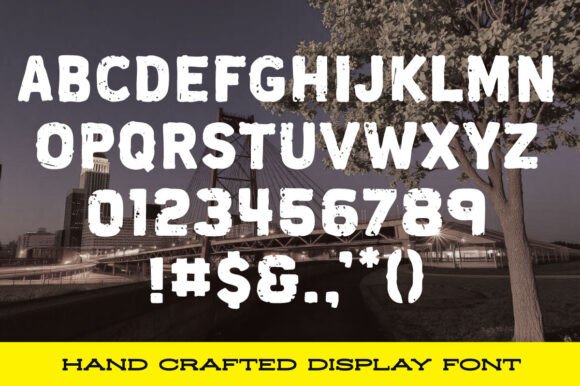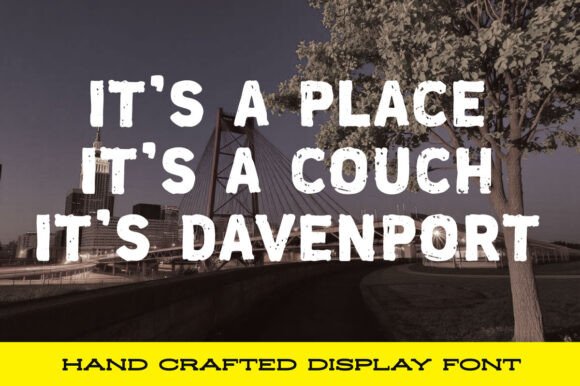
Davenport Font: A Timeless, Vintage-Inspired Sans-Serif for Bold Designs
In the world of typography, few fonts manage to capture the essence of nostalgia and rugged charm as effectively as Davenport. This bold, vintage-style sans-serif font is designed to evoke the character of old signage and well-worn printing techniques, making it an ideal choice for designers and crafters looking to add a touch of authenticity and timeless style to their projects.
The Characteristics of Davenport Font
Davenport’s design is marked by its strong, blocky letterforms, which give it a commanding presence on any medium. The font features a rugged, distressed texture that adds a layer of depth and character to its appearance. This texture, reminiscent of worn and weathered surfaces, lends Davenport an air of nostalgia and vintage charm. The bold strokes and sturdy structure of the letters ensure that the font remains legible even at larger sizes, making it perfect for use in posters, billboards, and other attention-grabbing applications.
Design Applications for Davenport Font
Davenport’s versatility makes it suitable for a wide range of design applications. Here are a few areas where this font truly shines:
- Branding: Davenport’s unique blend of toughness and timeless style makes it an excellent choice for brands looking to establish a strong, memorable identity. Its bold letterforms and distressed texture can add a layer of ruggedness and authenticity to a brand’s logo, setting it apart from more conventional designs.
- Posters and Advertising: The font’s commanding presence and nostalgic charm make it perfect for posters, flyers, and other advertising materials. Whether you’re promoting a concert, a product launch, or a social event, Davenport can help your message stand out and grab attention.
- Retro-Inspired Designs: For designers looking to create retro-themed projects, Davenport is an excellent choice. Its vintage-inspired aesthetic and distressed texture can help evoke the look and feel of bygone eras, from the 1950s to the 1990s.
What Makes Davenport Stand Out?
Several factors contribute to Davenport’s unique appeal:
- Balance of Toughness and Timelessness: Davenport strikes a delicate balance between toughness and timeless style. Its bold, blocky letterforms give it a rugged edge, while the distressed texture adds a layer of sophistication and elegance.
- Legibility: Despite its bold and distressed appearance, Davenport remains highly legible, even at smaller sizes. This makes it suitable for use in a wide range of applications, from body text to headlines.
- Versatility: Davenport’s versatility is one of its strongest assets. The font can be used in everything from digital designs to print materials, and its bold appearance ensures that it will stand out in any context.
Tips for Using Davenport Font Effectively
To get the most out of Davenport, consider the following tips:
- Use it Sparingly: Due to its bold and attention-grabbing nature, it’s best to use Davenport sparingly. Reserve it for headlines, titles, or other key elements that need to stand out.
- Experiment with Colors: Davenport’s distressed texture can be accentuated by the right color choices. Experiment with earth tones, metallic colors, or bold brights to find the perfect combination for your design.
- Pair it with Contrasting Fonts: To create visual interest, pair Davenport with contrasting fonts that offer a different aesthetic. A sleek, modern sans-serif or a elegant serif font can provide a nice counterpoint to Davenport’s bold, vintage charm.
| Author | stompstock |
Davenport font is a bold, vintage-inspired sans-serif that offers a unique blend of toughness and timeless style. Its rugged, distressed texture and strong, blocky letterforms make it perfect for designers and crafters looking to add a touch of nostalgia and authenticity to their projects. With its versatility, legibility, and commanding presence, Davenport is an excellent choice for a wide range of design applications, from branding and posters to retro-inspired designs. Whether you’re looking to create a bold statement or simply add a touch of vintage charm to your work, Davenport is a font that is sure to deliver.